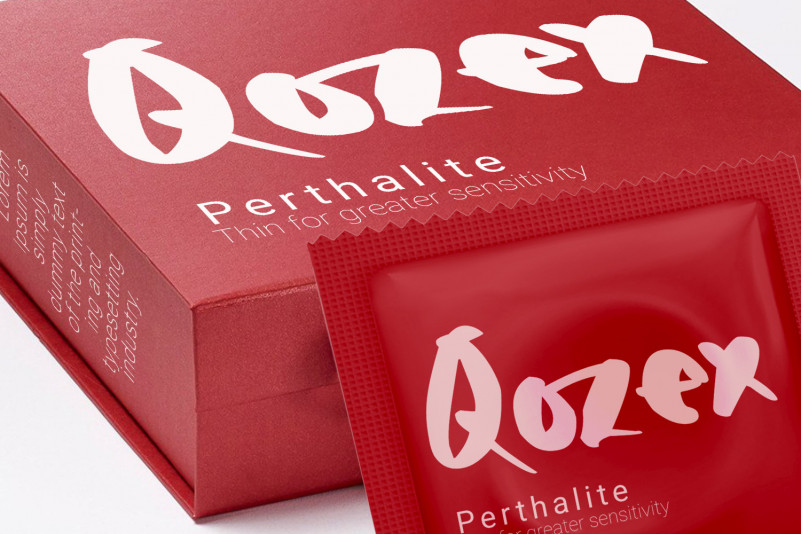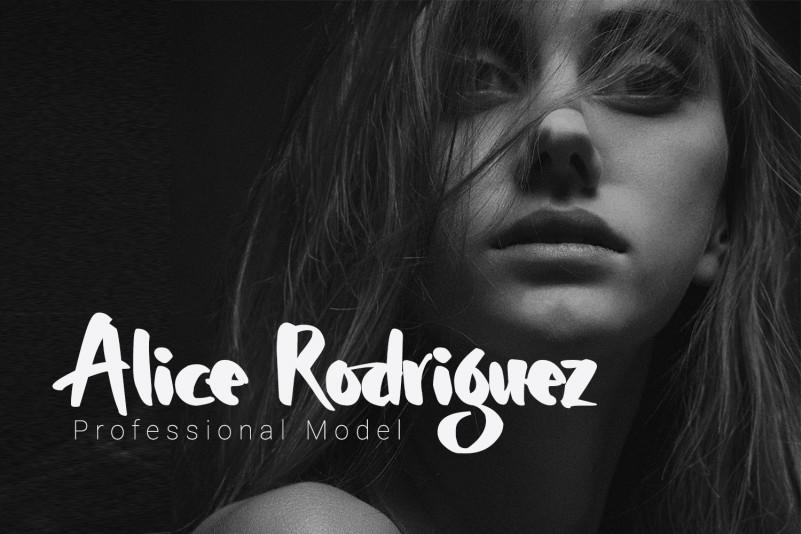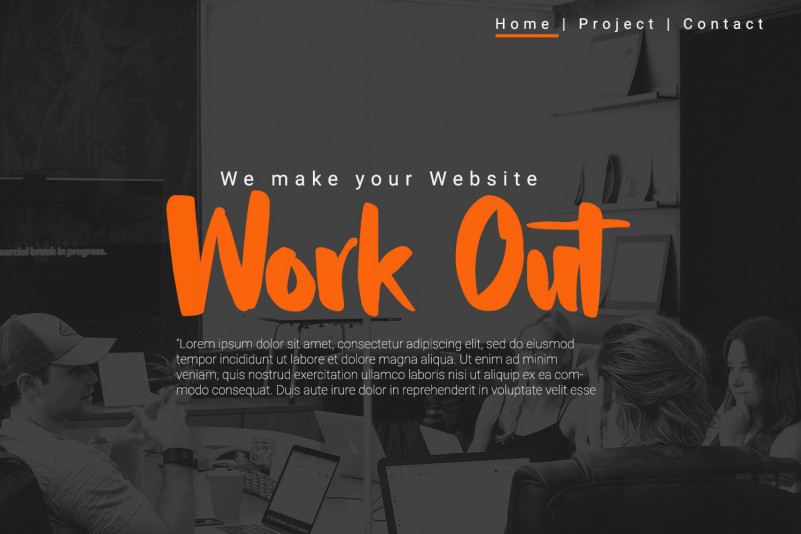
Allegroost Script Font
Allegroost Script Font is a handwritten font that uses a large brush in a horizontal position, so that the brush strokes vertically make the size large, opposite the horizontal strokes the size becomes small.
To add to the natural impression, we complete many ligatures that adjust handwriting such as: ob, oc, od, og, oh, oi, oj, ok, ol, om, on, oo, op, oq, or, os, ot, ou , ov, ow, ox, oy, oz, bo, bd, bg, bi, br, bu, by, ee, ii, ll, tt, th, tl, lt, it, ti, iti, ld, ts, st , mm, nn
Allegroost Script Font unique handwriting is perfect for logos, quotes, posters, fun letters, for clothing, or any design project.
Equipped with 28 language support makes your brand can appear in various parts of the world